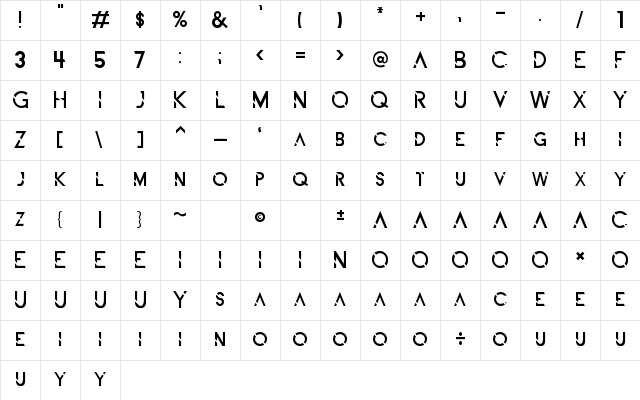
ALDITH Regular
Foundry: Edric Studio
Designer: Aghnia
Design Context for ALDITH
ALDITH is a composed and adaptable typeface that performs quietly and consistently across a wide range of design contexts.